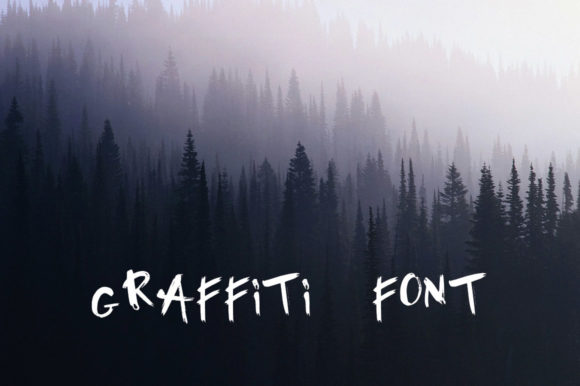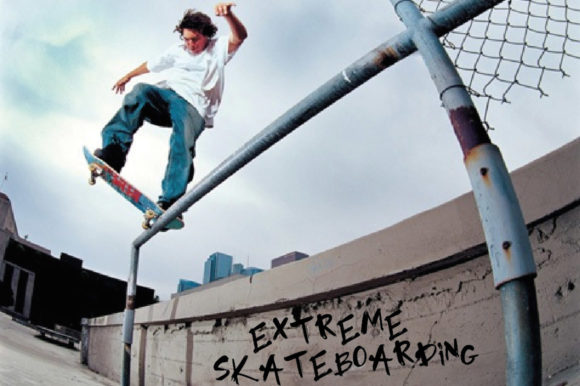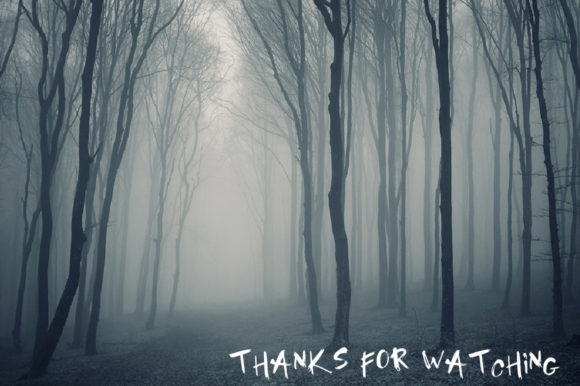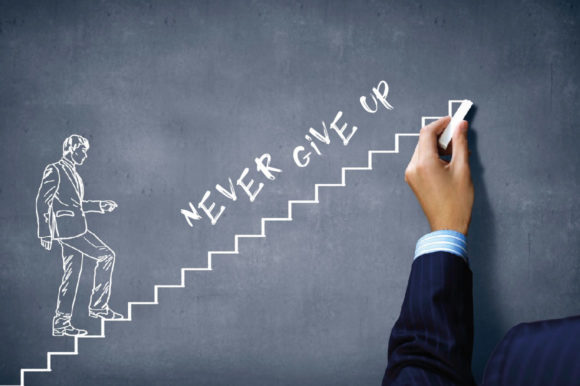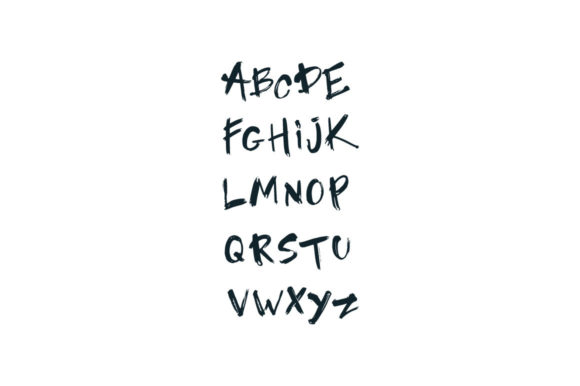
Graffiti Font
About Graffiti Font
Graffiti is a cool, brushed and a bit scary looking handwritten font. It will add a dramatic touch to each of the designs that you wish to create.